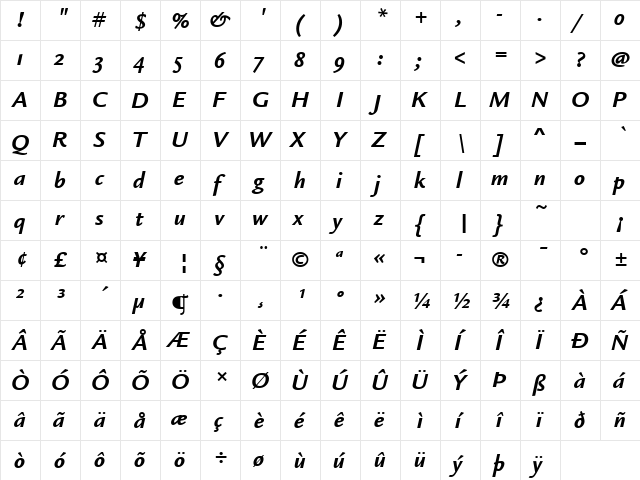
Legacy Sans OS ITC TT BoldIta
Design Context for Legacy Sans OS ITC TT Typeface
Legacy Sans OS ITC TT takes a measured approach to typography — its balanced proportions and neutral character make it a reliable workhorse for both digital and print work. The heavy weight commands attention and anchors typographic hierarchies.